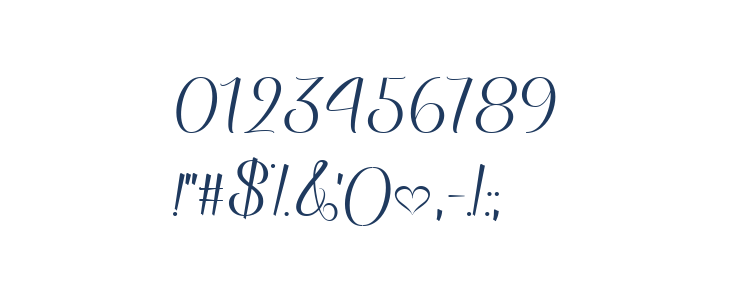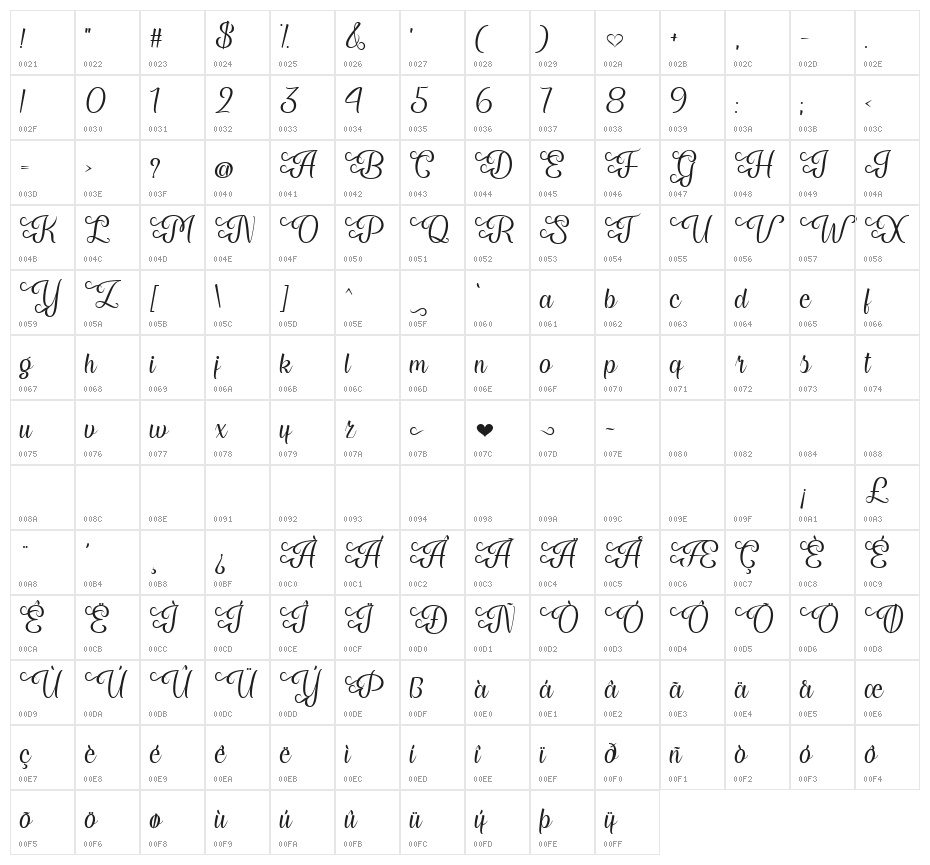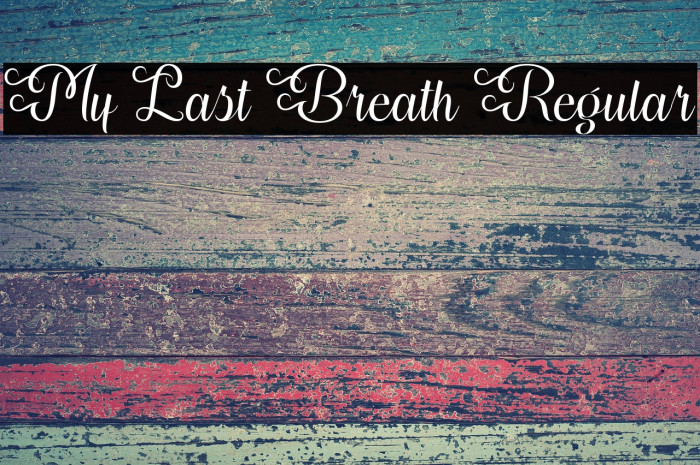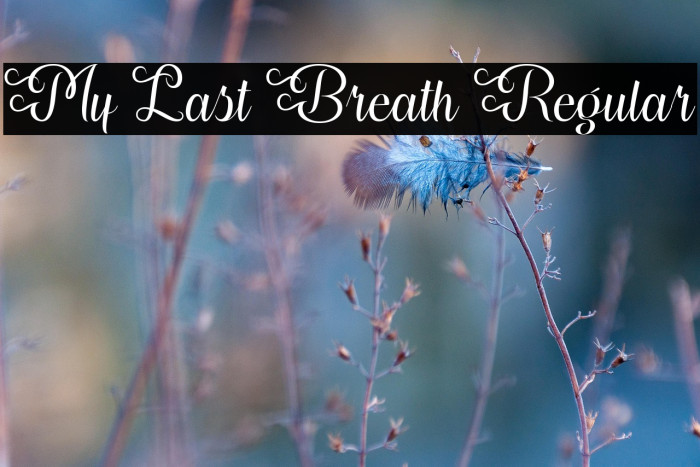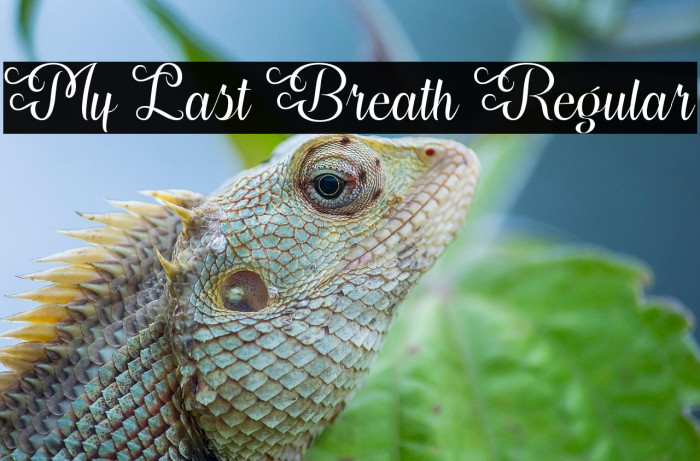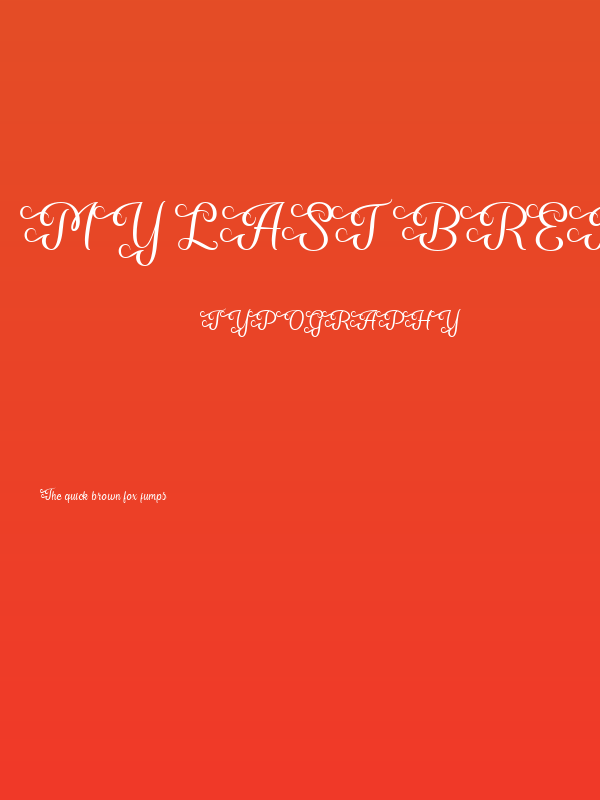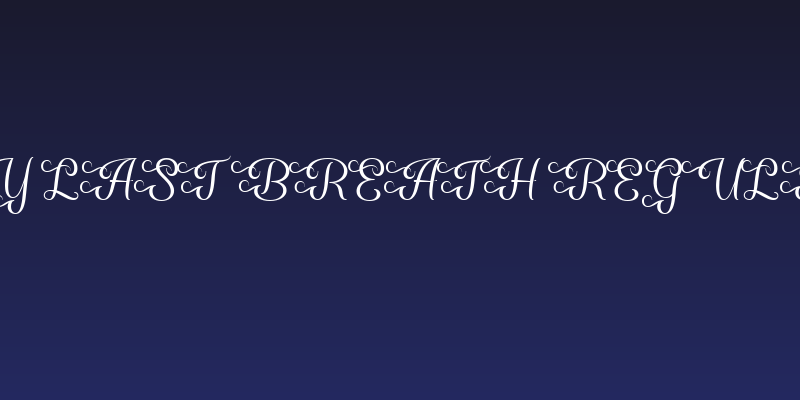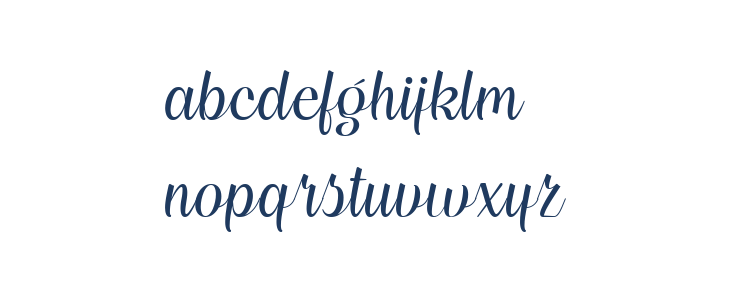
My Last Breath Regular Font
My Last Breath Regular Description
This elegant script font features intricate swashes and flourishes, giving it a highly decorative and sophisticated appearance. The uppercase letters are adorned with elaborate curls, while the lowercase letters maintain a smooth, flowing style that enhances readability. The numerals are stylishly crafted, complementing the overall design. Special characters are included, each with unique embellishments that add to the font's charm. The font's artistic flair makes it ideal for projects that require a touch of elegance and creativity.